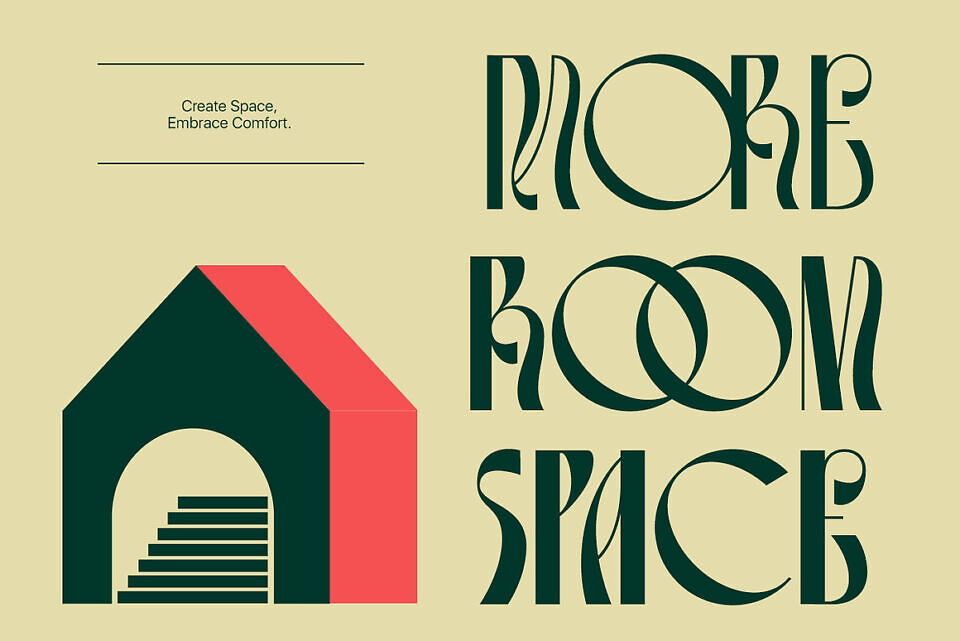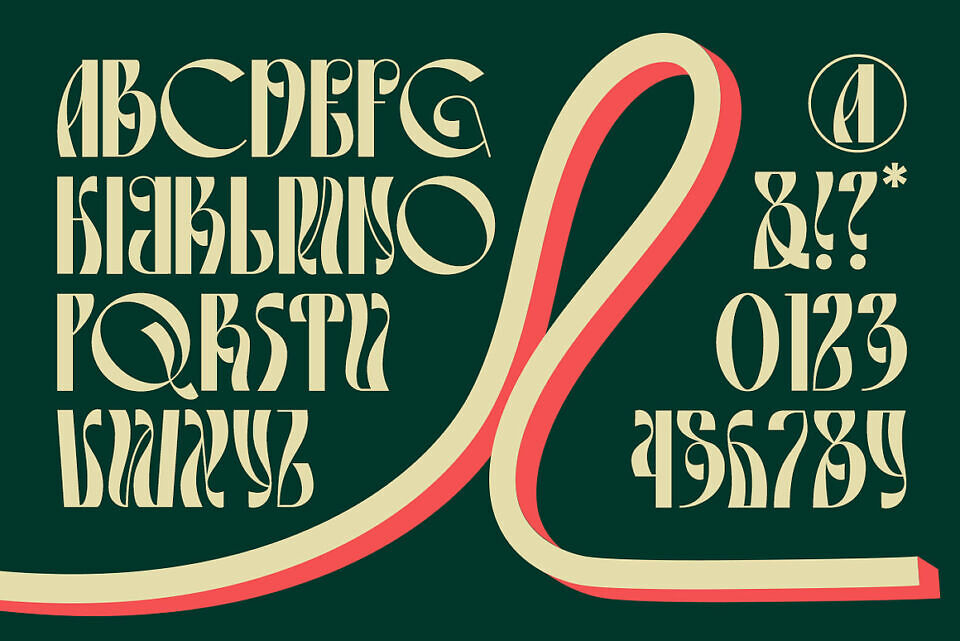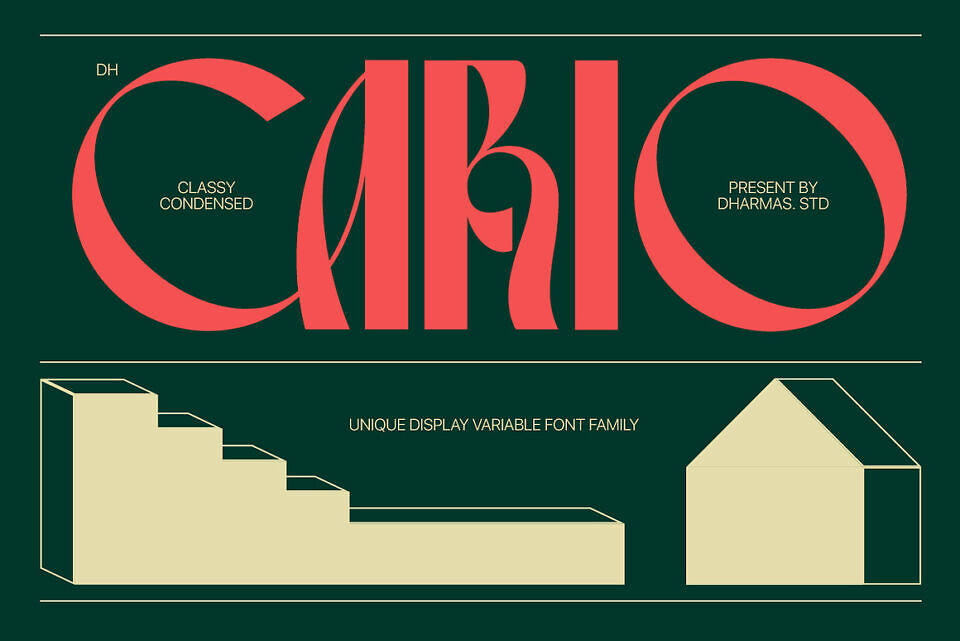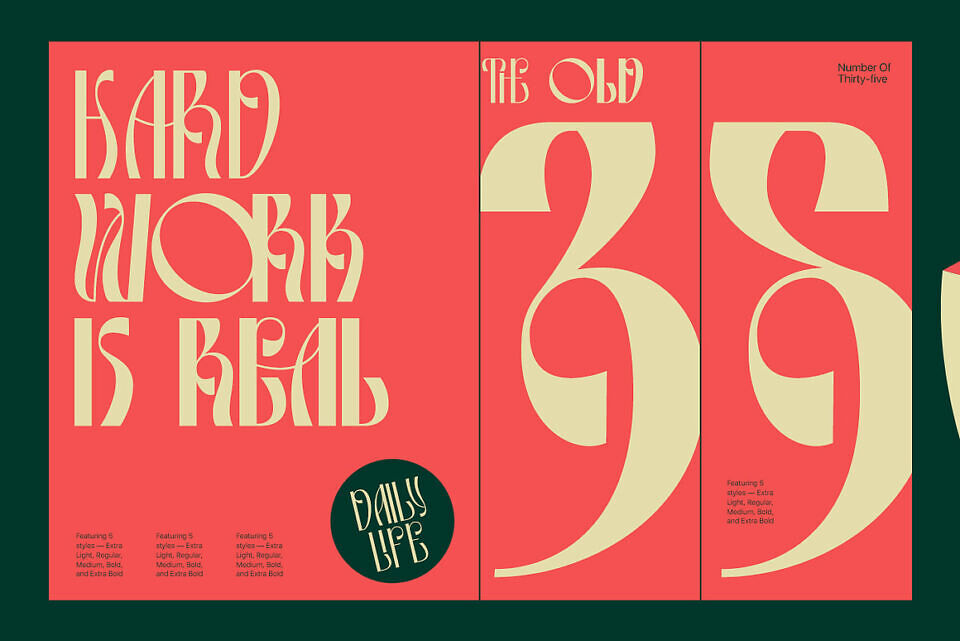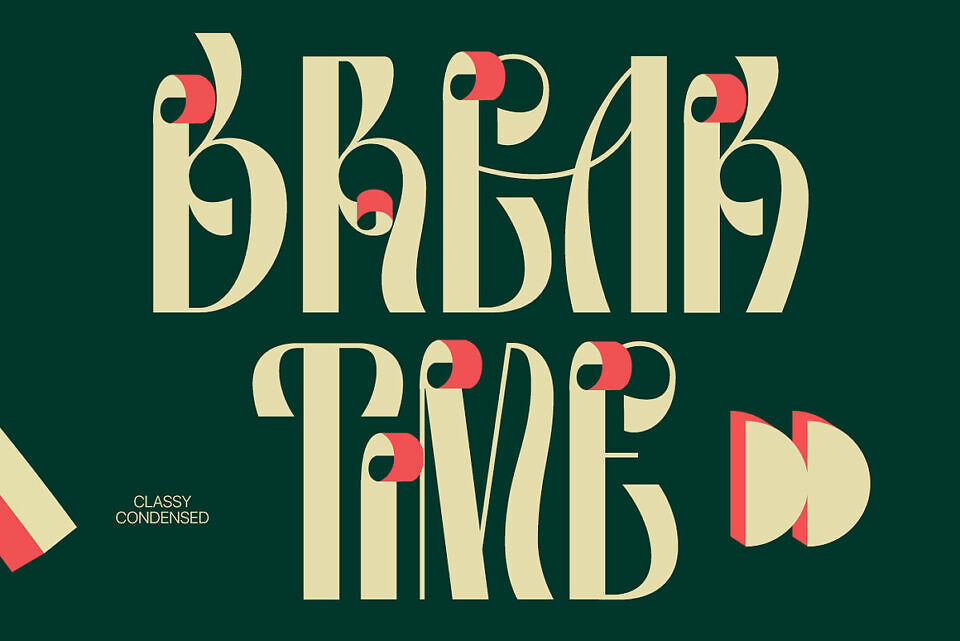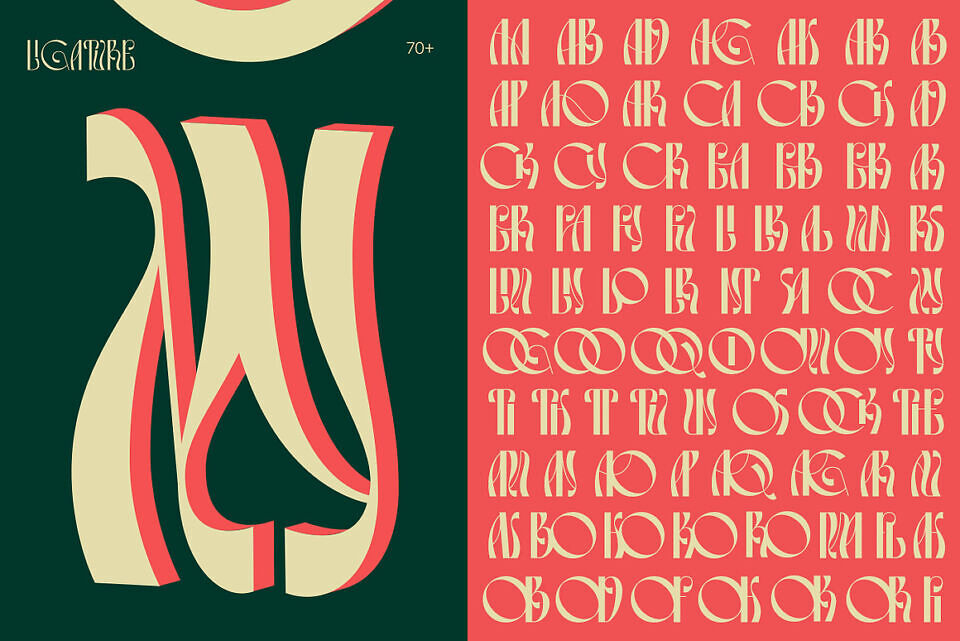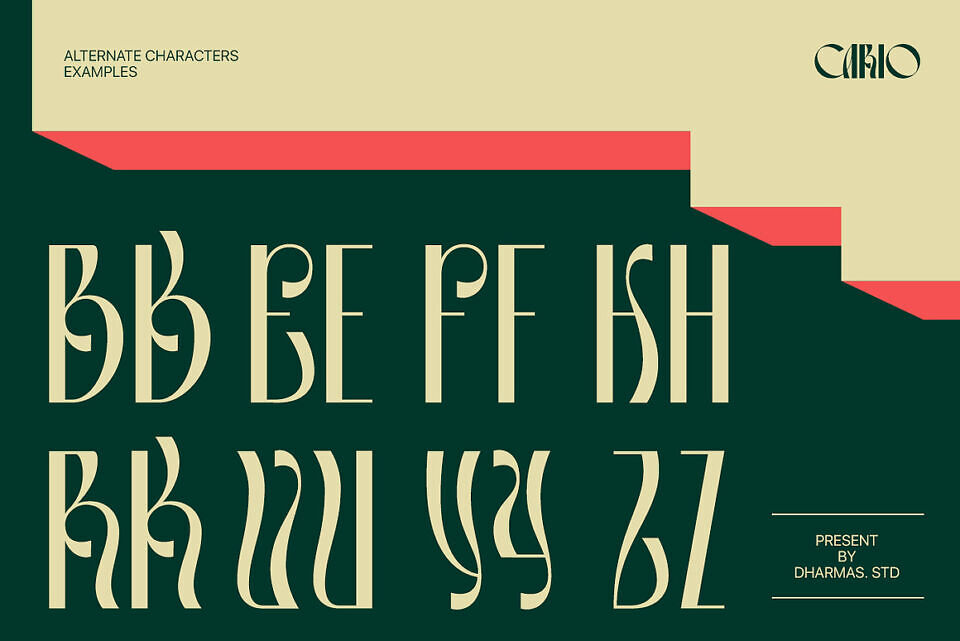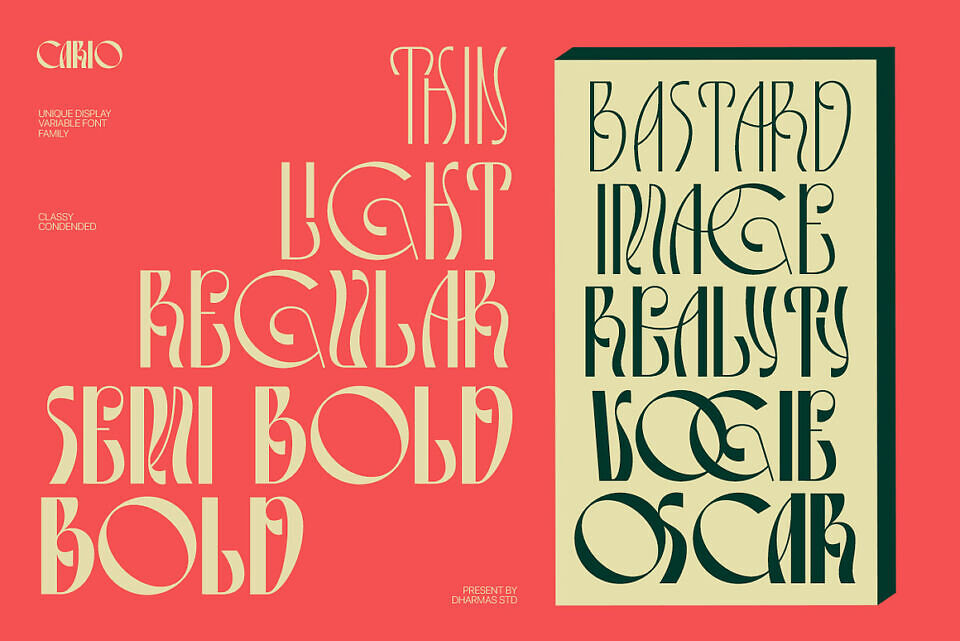
Introducing Dh Cario, a display variable typeface creatively designed by Dharmas Studio. Featuring 5 weight variations—Thin, Light, Regular, Semi Bold, and Bold—and 85 unique ligatures and alternates, Dh Cario is the perfect choice for creating elegant and impactful designs. Ideal for headline posters, brand logos, aesthetic moodboards, and beauty branding, Dh Cario adds a modern and captivating touch to any project.
This font is highly versatile for various needs, such as Instagram templates, Canva designs, and headline presentations. With its unique ligatures and alternates, Dh Cario allows you to create typography that feels personal and distinctive. It’s the perfect choice for anyone looking to add a professional yet creative flair to their designs.